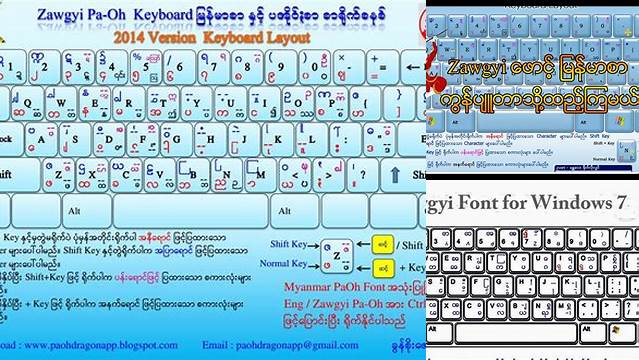
Hey guys! Are you looking to download Zawgyi font for Windows 10 for free? You've come to the right place! In this comprehensive guide, we'll walk you through everything you need to know about Zawgyi font, including what it is, why you might need it, and how to download and install it on your Windows 10 system. We'll also cover some common issues you might encounter and how to troubleshoot them. So, let's dive in!
Zawgyi font is a widely used font for typing the Burmese language (Myanmar language) on computers and other digital devices. It's based on a non-Unicode encoding, which means it doesn't follow the international standard for character encoding. While Zawgyi was initially popular due to its widespread availability and ease of use, it's important to understand its limitations, especially when it comes to compatibility and long-term sustainability. Many modern systems and platforms are transitioning to Unicode-based fonts like Pyidaungsu, which offer better support for the Burmese script across different devices and applications. However, Zawgyi remains relevant for many users, particularly those who need to access or create content in older formats.
The popularity of Zawgyi font stems from its early adoption and ease of use in the Burmese-speaking community. When computers first started supporting Burmese script, Zawgyi was one of the first fonts available, and it quickly became the standard. This widespread adoption created a large ecosystem of Zawgyi-based content, including websites, documents, and social media posts. As a result, many users continue to use Zawgyi to ensure compatibility with this existing content. However, the non-Unicode nature of Zawgyi can lead to issues with text rendering and searching, especially when interacting with systems that use Unicode fonts. This has prompted efforts to transition to Unicode-based fonts, but the legacy of Zawgyi means it remains in use, and many users still need to download and install it on their systems.
Zawgyi font, as we've briefly touched upon, is a non-Unicode font encoding specifically designed for the Burmese language. This means it uses a different system for representing characters compared to the widely accepted Unicode standard. To put it simply, imagine two different sets of instructions for a computer on how to display text. Unicode is like the universal set of instructions that most modern computers and software understand, ensuring that text appears correctly across different platforms and devices. Zawgyi, on the other hand, is like a custom set of instructions that only works if the computer has been specifically taught to understand it. This difference is crucial because it affects how text is displayed, searched, and processed on different systems.
The key distinction between Zawgyi and Unicode lies in how they assign numerical values to characters. In Unicode, each character in every language is assigned a unique number, ensuring consistency across different platforms. This means that if you type a Burmese character using a Unicode font on one computer, it will appear correctly on another computer that also supports Unicode, regardless of the specific software or operating system. Zawgyi, however, uses its own encoding scheme, which means that the same numerical value might represent different characters in Zawgyi and Unicode. This can lead to problems when you try to copy and paste Zawgyi text into a Unicode-based application, or vice versa. The text might appear as gibberish or boxes because the computer is interpreting the Zawgyi encoding using Unicode, or the other way around.
Despite the technical differences, the widespread adoption of Zawgyi is rooted in its historical context. When computers began to support the Burmese language, Zawgyi was one of the first fonts available. Its ease of use and availability made it a popular choice, leading to a large amount of content being created using Zawgyi. This created a network effect, where more people used Zawgyi because it was compatible with the existing content, and more content was created in Zawgyi because it was the most widely used font. However, this legacy also created challenges as the world moved towards Unicode. While Zawgyi allowed Burmese speakers to type in their language, its non-Unicode nature created compatibility issues. Text created in Zawgyi might not display correctly on systems that don't have the font installed, and it can be difficult to search or process Zawgyi text using standard tools. This is why there has been a push to transition to Unicode-based Burmese fonts, which offer better compatibility and long-term sustainability.
Even with the push towards Unicode, there are still several reasons why you might need to download Zawgyi font for Windows 10. The most common reason is compatibility with older documents and websites. As mentioned earlier, Zawgyi was widely used in the early days of Burmese computing, so a significant amount of content was created using this font. If you need to access or edit these older documents, you'll likely need to have Zawgyi installed on your system to ensure the text displays correctly. Imagine you have a collection of important documents, perhaps historical texts or personal records, that were created using Zawgyi. Without the font installed, these documents might appear as a jumble of symbols or unreadable characters. This makes it essential to have Zawgyi available if you want to preserve and access this valuable information.
Another reason to use Zawgyi is interaction with older systems or software. Some older software applications or operating systems may not fully support Unicode for Burmese script, but they might be able to display Zawgyi text correctly. In these cases, using Zawgyi is the only way to ensure that Burmese text is displayed properly. This is particularly relevant if you work in an environment where you need to maintain compatibility with legacy systems. For example, if you're working with an older database or a specific piece of software that hasn't been updated to fully support Unicode, you might need Zawgyi to interact with the system effectively. This can be a common scenario in organizations that have been using computers for a long time and haven't fully migrated to modern systems.
Furthermore, some social media platforms and online forums still display content in Zawgyi. While many platforms have made progress in supporting Unicode fonts, there may still be instances where Zawgyi text is prevalent. If you want to participate in these online communities or read the content posted by others, having Zawgyi installed can improve your experience. Think of it like being able to read a different dialect or a historical language. While modern forms of communication might use a different standard, understanding the older form allows you to engage with a wider range of content and people. In the same way, having Zawgyi installed allows you to fully participate in online conversations and access information that might otherwise be inaccessible.